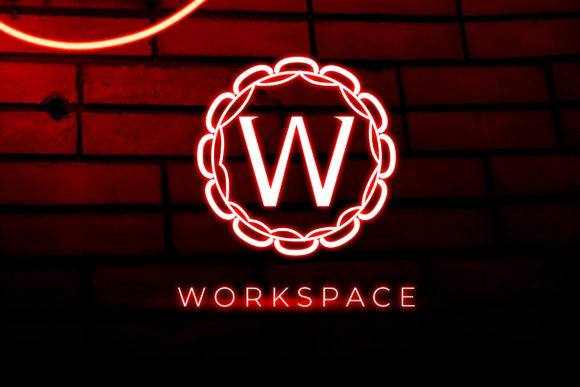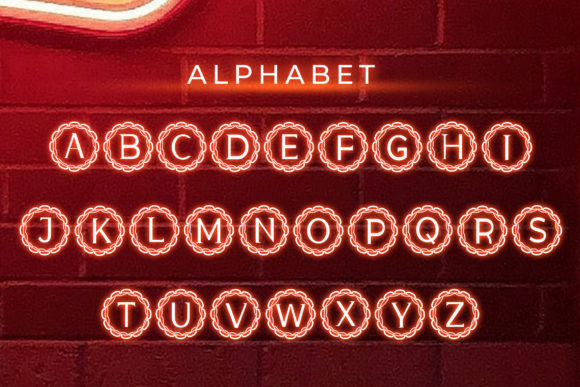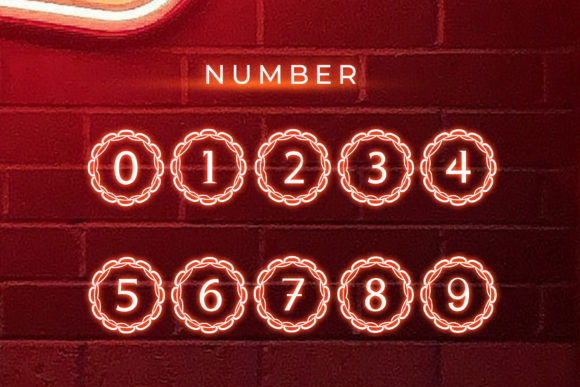
Introduction to Monogram Neon Font
Monogram Neon is an incredibly cool and detailed decorative font.
It is perfect for fashion branding or editorial designs Add it confidently to your projects, and you will love the results.
Key Features of Monogram Neon Font
Why Choose Monogram Neon Font?
Monogram Neon Font offers exceptional quality and versatility, making it a valuable addition to your design toolkit. Whether you’re creating for personal projects or commercial use, Monogram Neon Font delivers professional results.